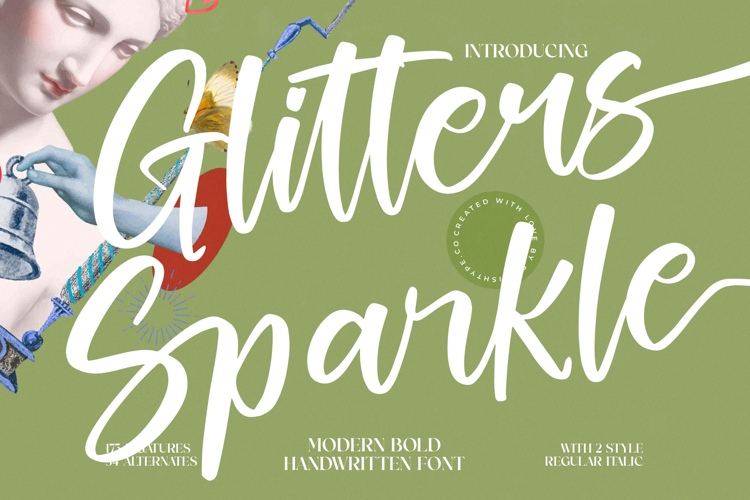
Glitters Sparkle - Modern Bold Handwritten Font
Glitters Sparkle - Modern Bold Handwritten Font offers profound customization capabilities to avoid repetition and add bespoke flair, simulating truly natural handwriting. With its extensive multilingual support, Glitters Sparkle - Modern Bold Handwritten Font adapts seamlessly across global markets, making it incredibly versatile for international projects.